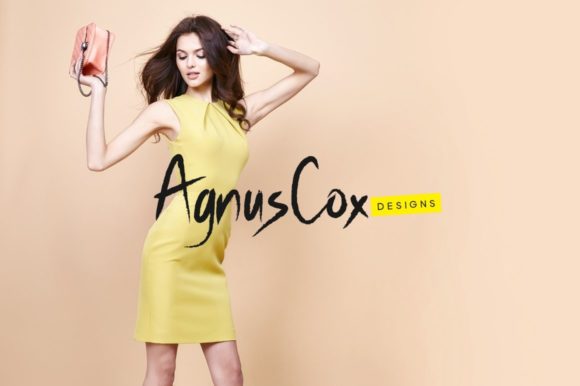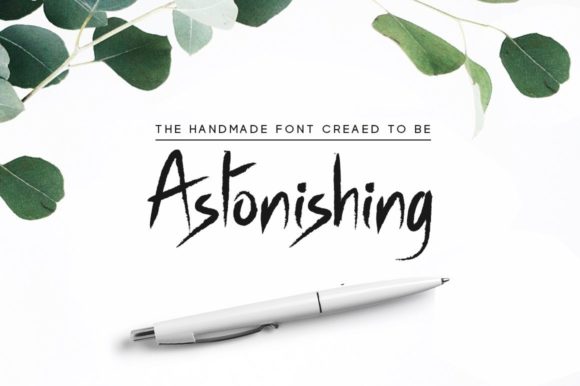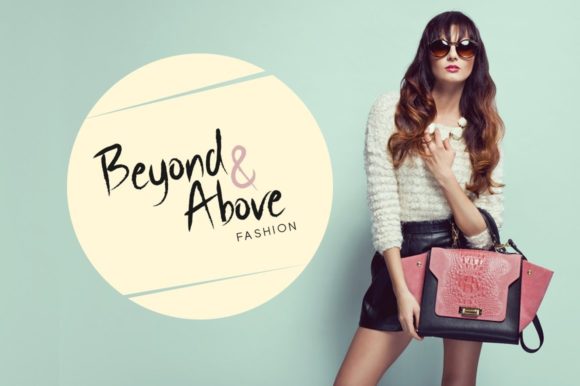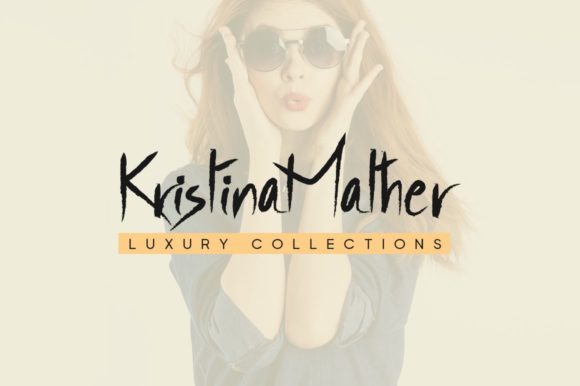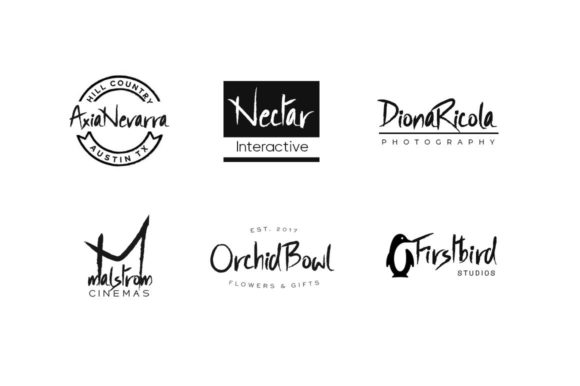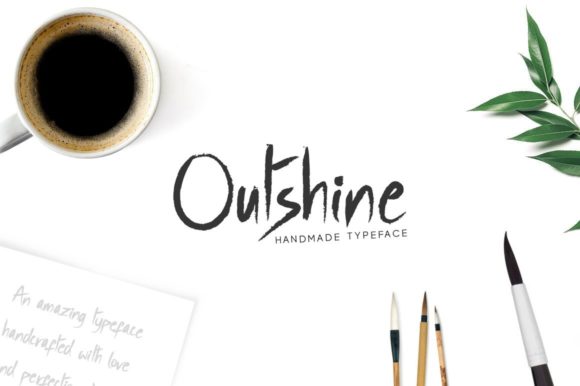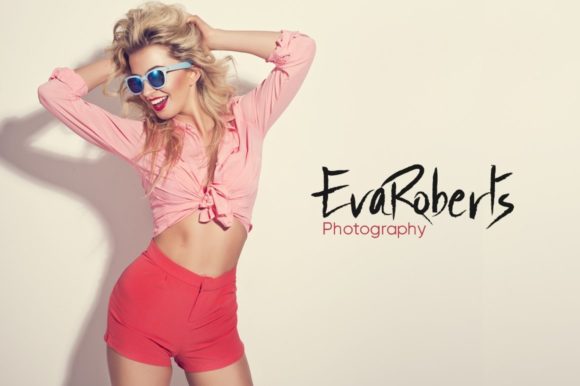
Outshine Font
About Outshine Font
Outshine is a cool brushed handwritten font. Trendy and a bit quirky, this font will add a unique touch to your designs. Add it confidently to your projects, and you will love the results.